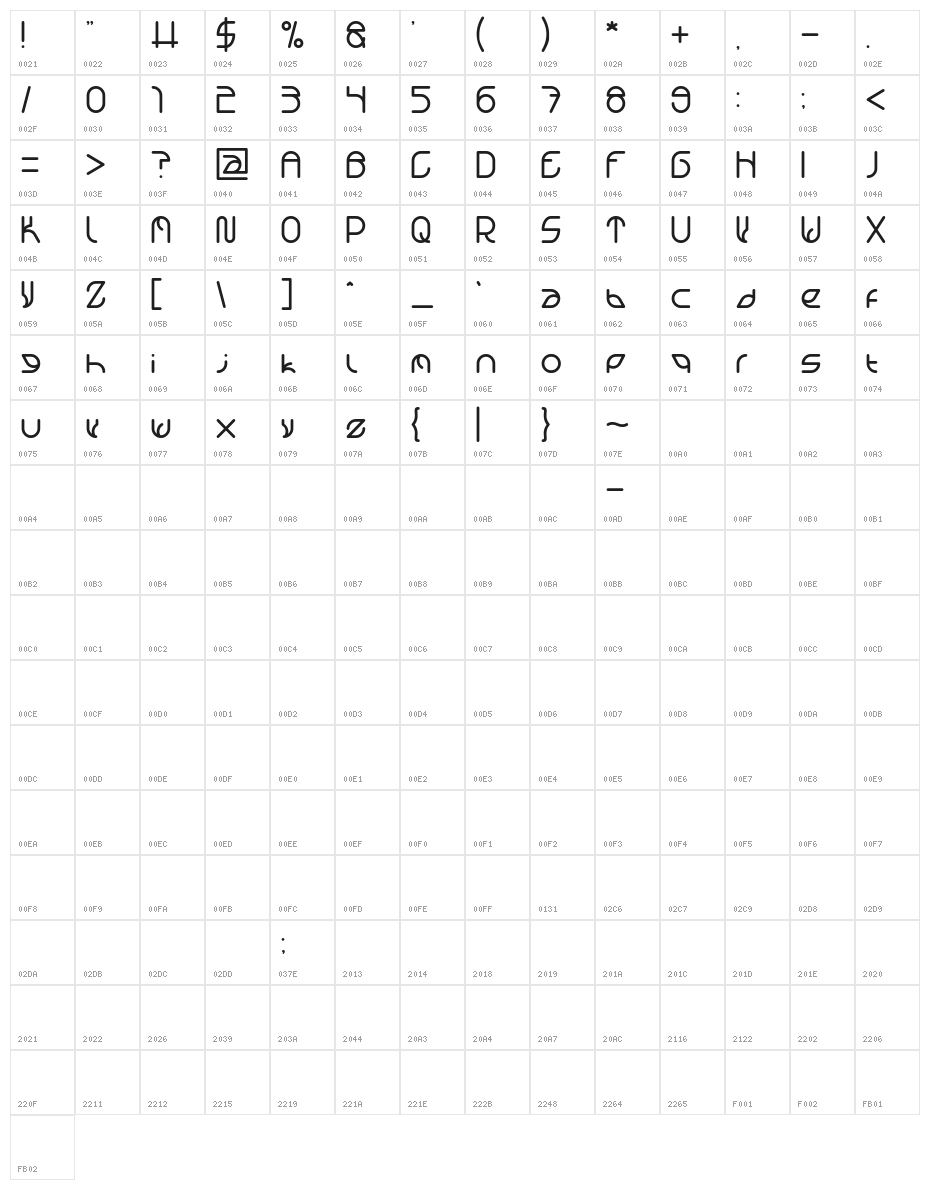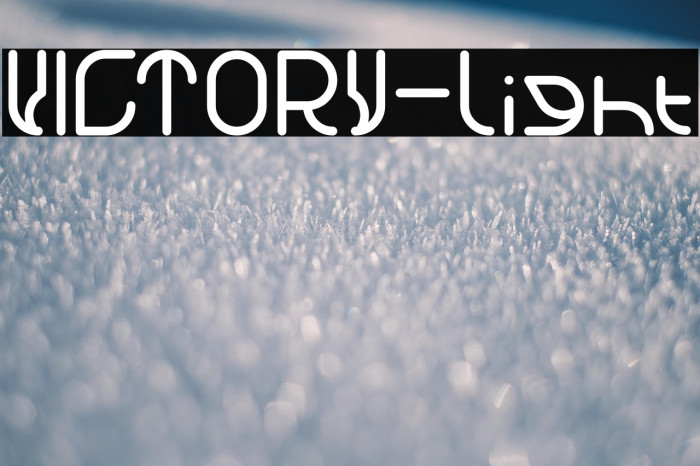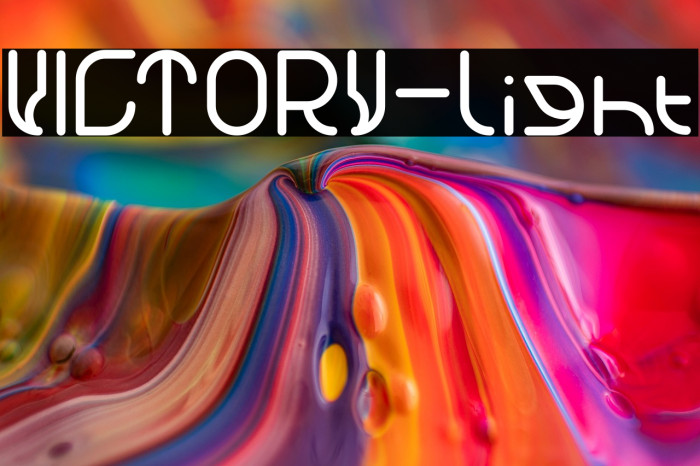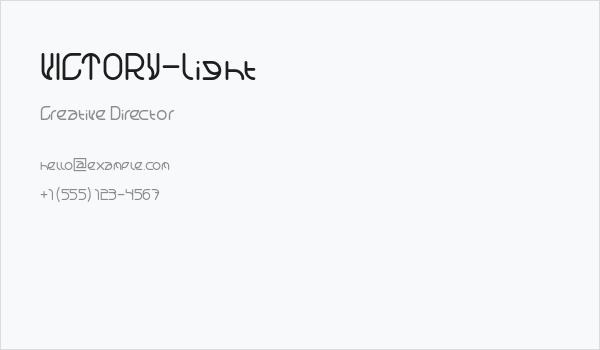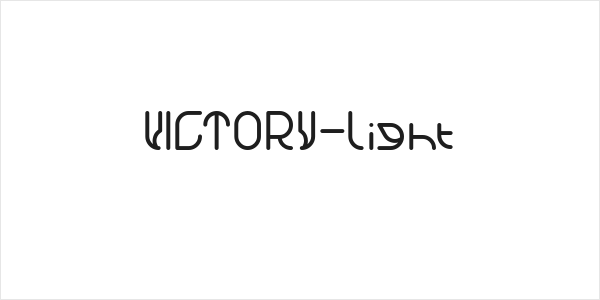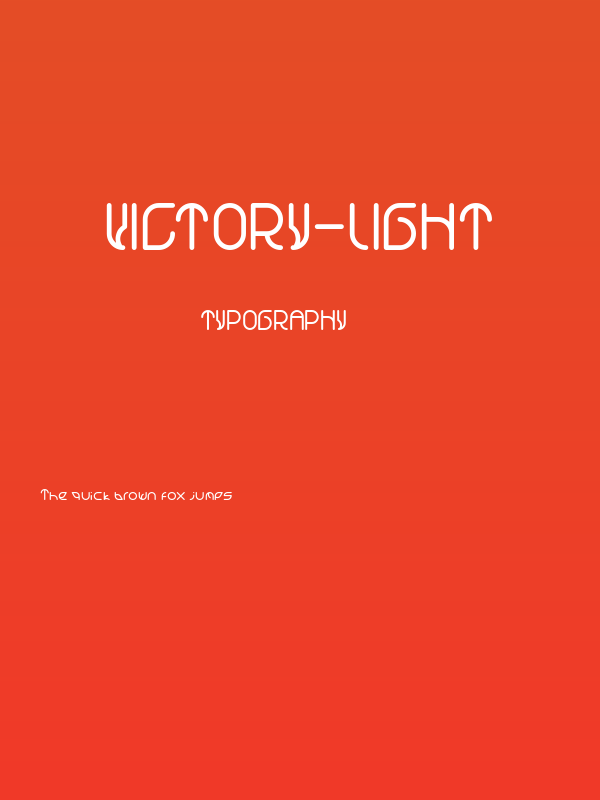
VICTORY-Light Font
VICTORY-Light Description
This font features a modern, geometric design with rounded edges and a clean, minimalist aesthetic. The characters are uniform in width, creating a harmonious and balanced appearance. The uppercase and lowercase letters maintain a consistent style, with smooth curves and a futuristic feel. The numerals and special characters are designed to complement the alphabet, maintaining the same sleek and contemporary look. This font is ideal for projects that require a modern and stylish touch, offering a unique blend of simplicity and sophistication.
| Use Case | Headlines, Logos, Digital interfaces |
| Proposed Projects | Ideal for branding, digital interfaces, modern advertising, and futuristic design projects. |